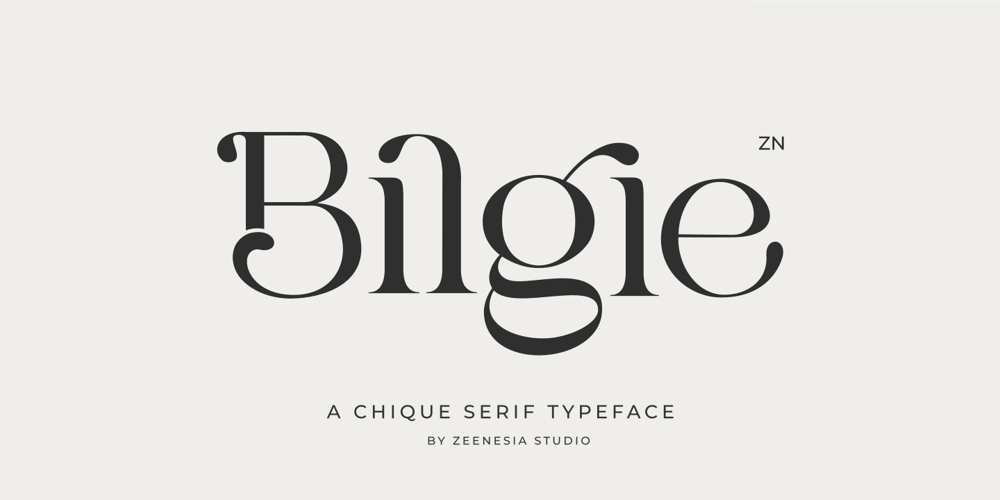
Bilgie Font Family was designed by Doni Purwoko and published by Zeenesia Studio. Bilgie contains 1 styles and family package options. Introducing Bilgie.Bilgie is a chique font with serif style. It’s modern and classic font with a unique and deference look , very versatile font that works great in large. Perfect if you need a dose of fun in your project. Perfect for editorial projects, Logo design, web font, clothing branding, product packaging, magazine headers, or simply as a stylish text overlay to any background image.We hope you enjoy the font, please feel free to comment if you have any thoughts or feedback.Thanks for purchasing and glad to help you!